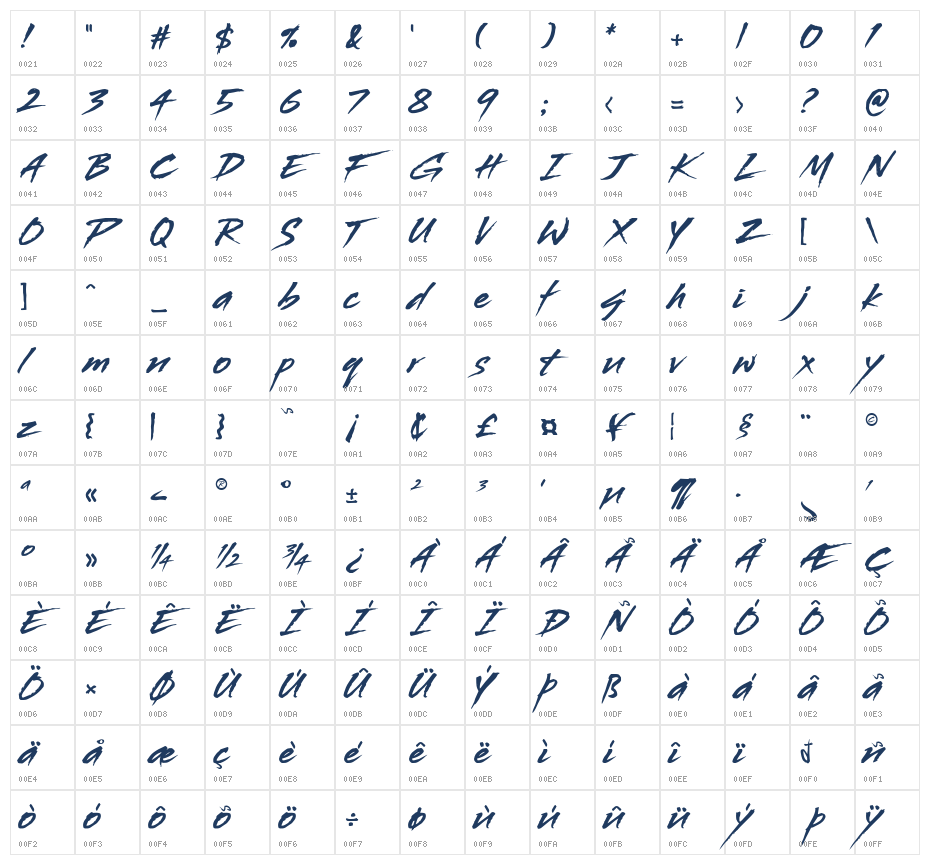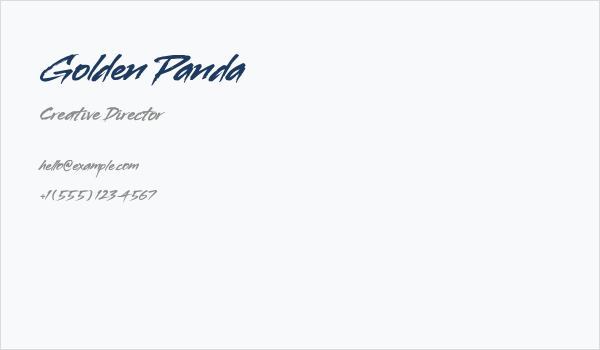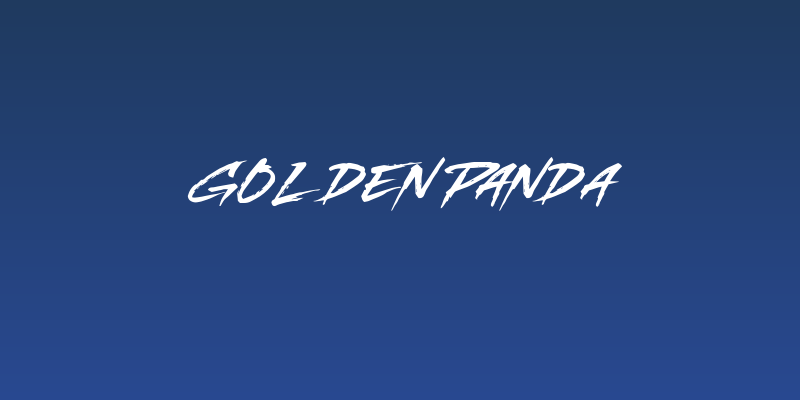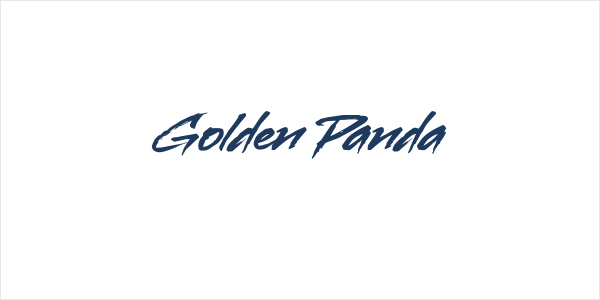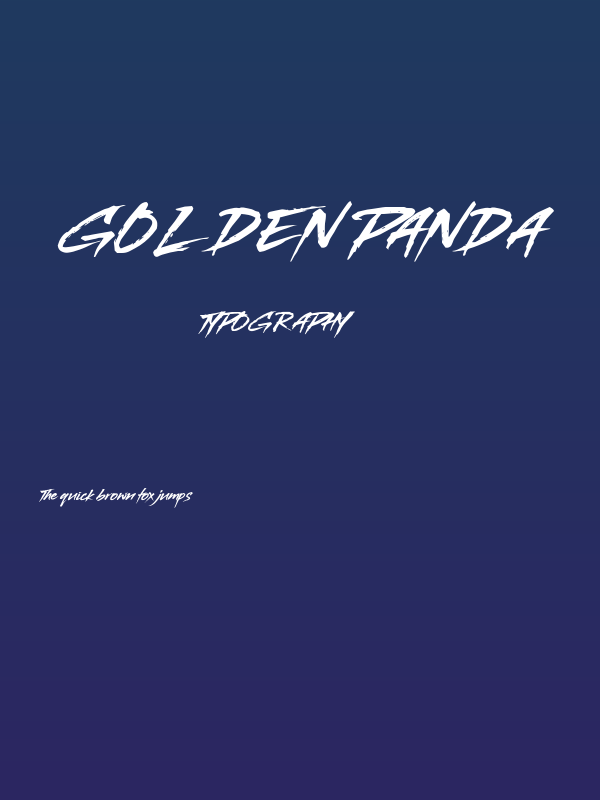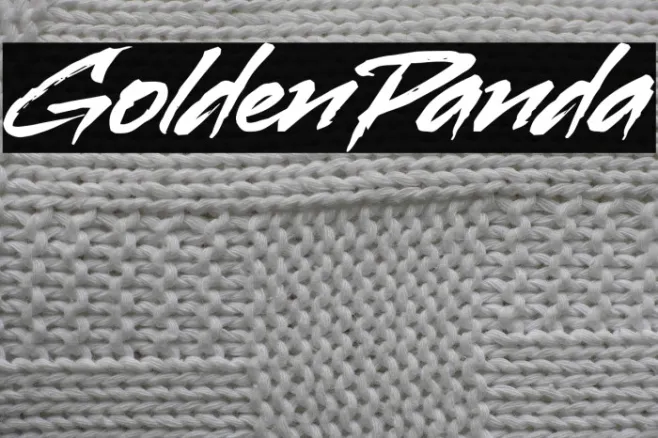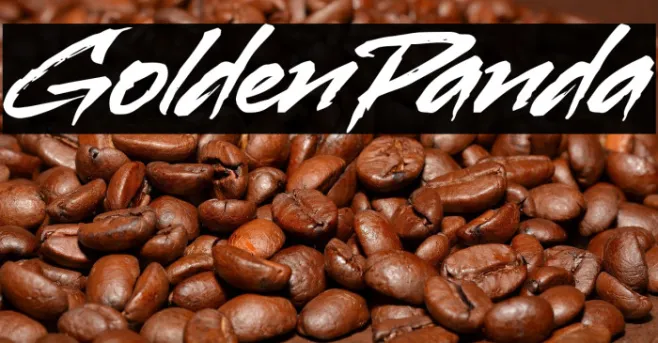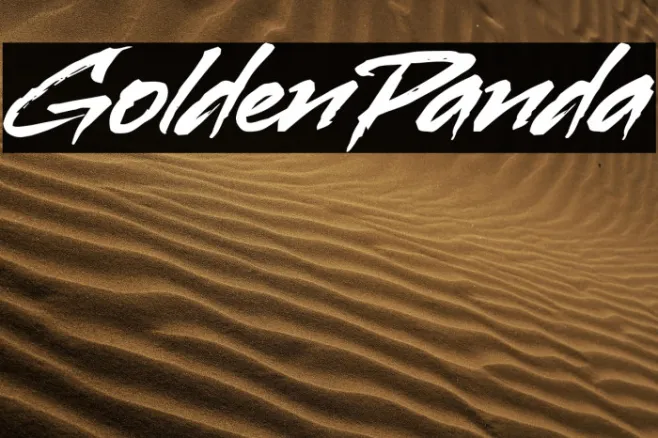
Golden Panda Font
Golden Panda Description
A bold, brush-stroke style script font with a dynamic and energetic appearance, featuring sharp, tapered edges and a handwritten feel.
| Overall Style | Dynamic, Handwritten, Brush-stroke |
| Use Case | Headlines, Logos, Posters, Branding |